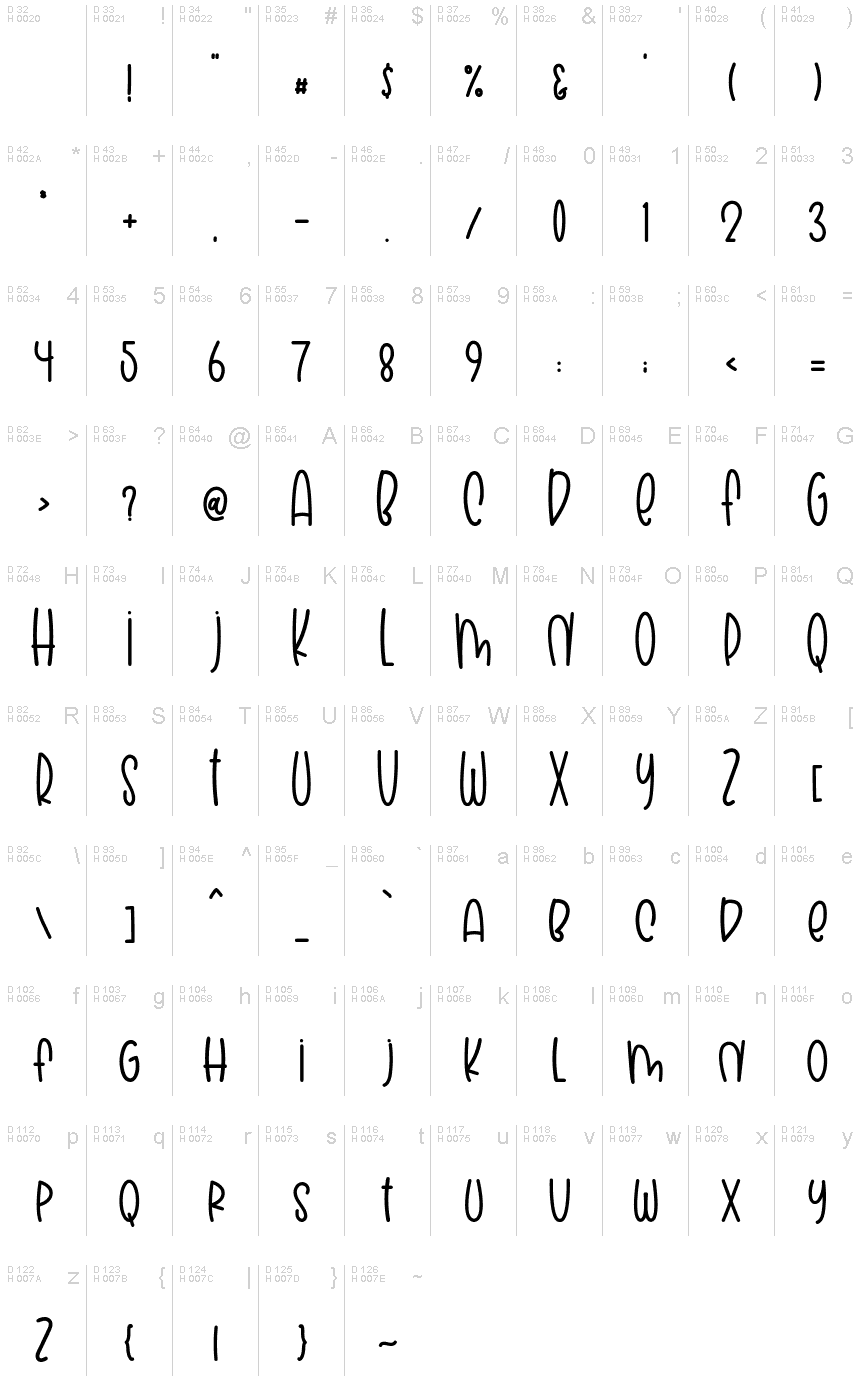
Love Me
Love Me, a creation by the talented Andang Prasetyo, is a captivating handwritten font that brings a touch of elegance and personality to any design. With its semi-light weight and condensed width, this typeface offers a delicate balance that is both impactful and subtle. Its handwritten style exudes charm and intimacy, making it an excellent choice for projects that require a romantic or personal flair.
The beauty of Love Me lies in its versatility; it is equally at home on the pages of magazines as it is on social media graphics or wedding invitations. The font's aesthetic appeal lies in its organic curves and natural flow, which mimic the spontaneity of genuine handwriting. Perfect for product packaging and branding endeavors where a sense of authenticity is crucial, Love Me can effortlessly elevate your creative vision.
Whether you're looking to convey heartfelt sentiments on greeting cards or aiming to craft striking headlines that capture attention, Love Me will infuse your work with an undeniable allure. This typeface isn't just about aesthetics-it's about capturing moments and emotions above the background noise. Let Love Me express your words with grace and style in your next project.